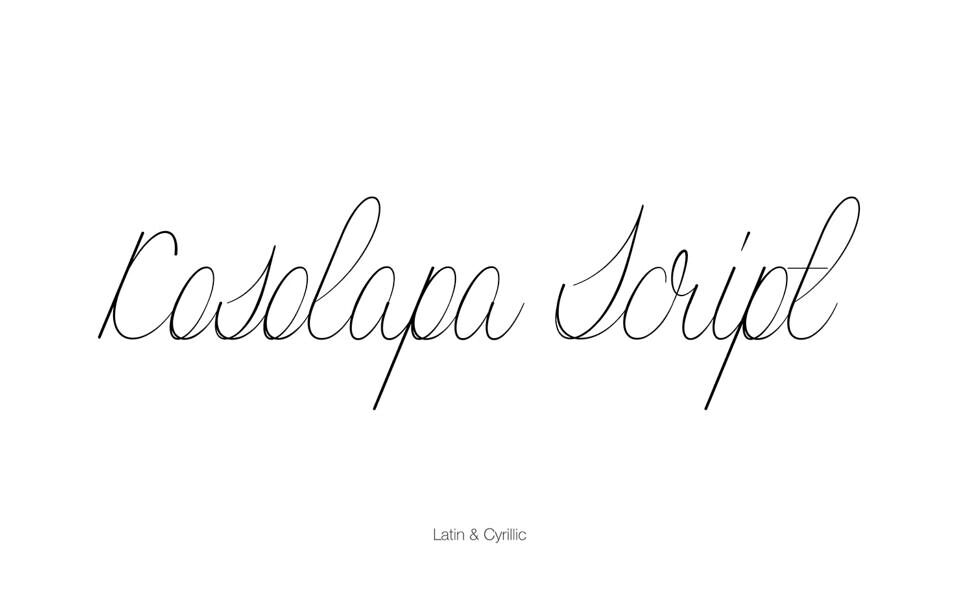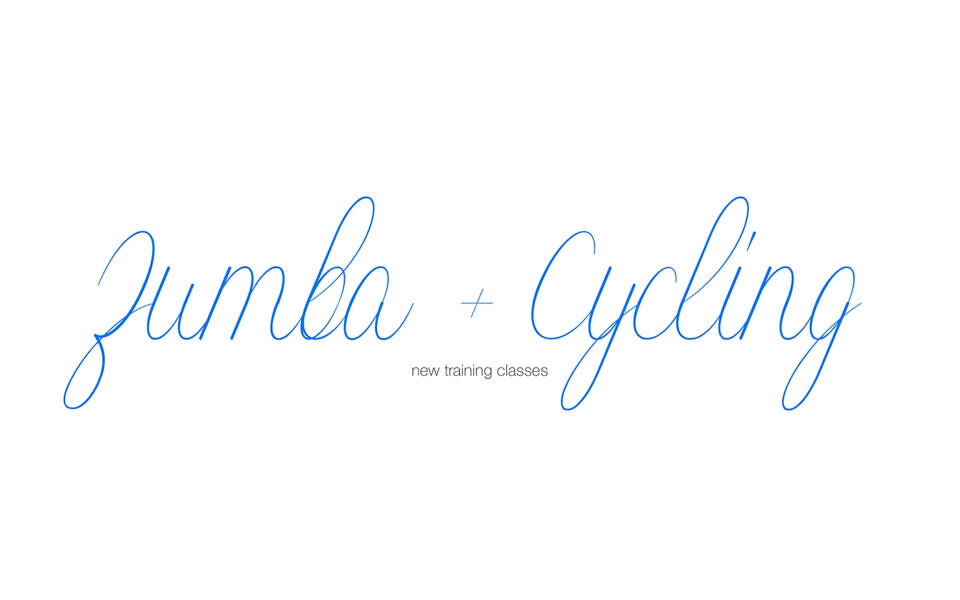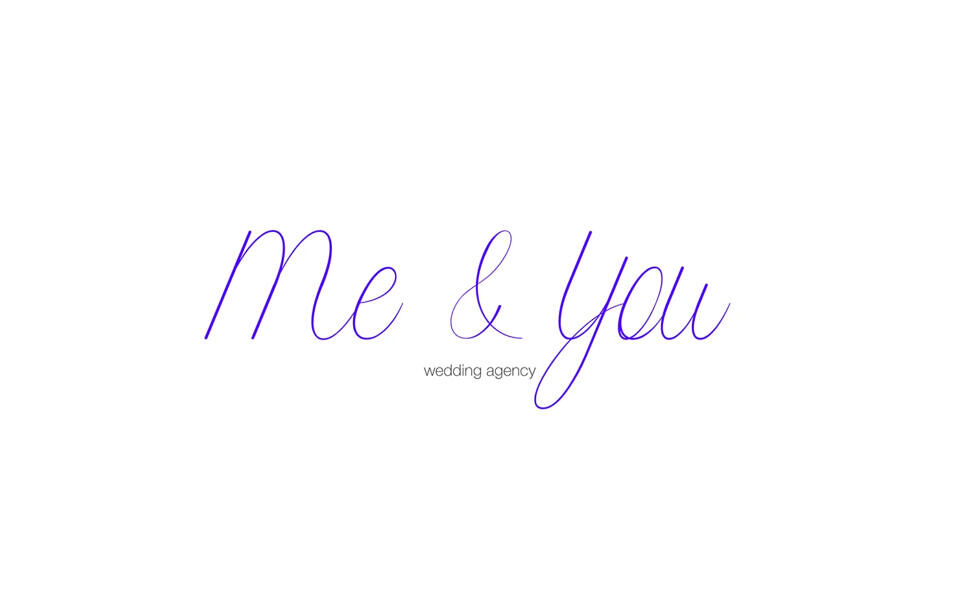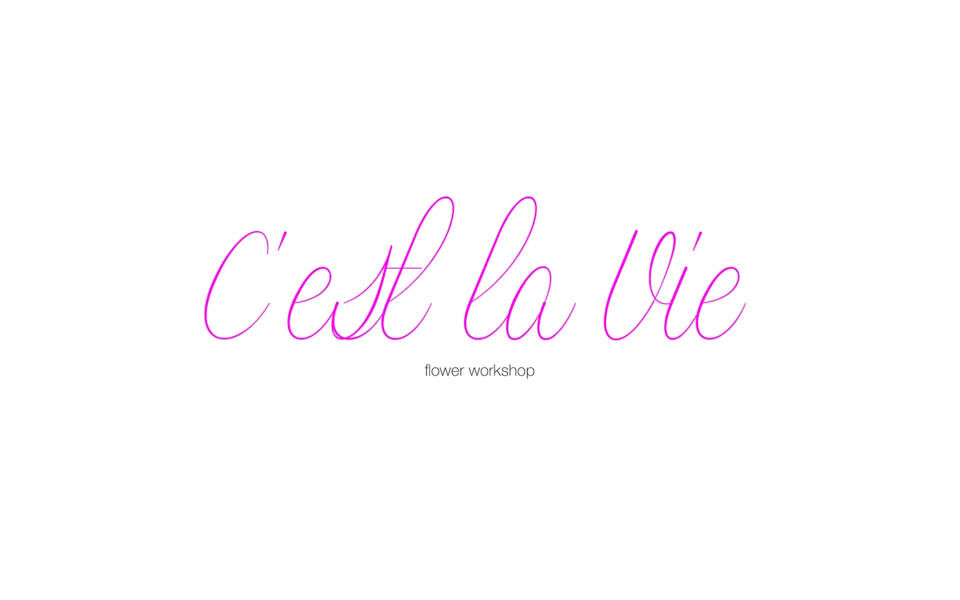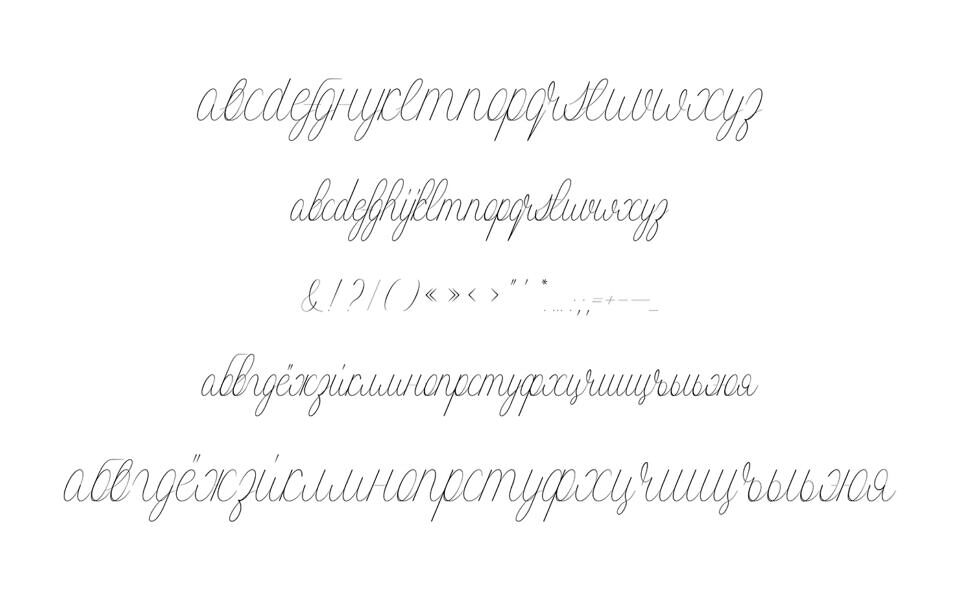
Kosolapa Script is an elegant and fluid handwritten font designed by Alexey Mozgolin. Its fine, curved strokes offer a refined and modern aesthetic, perfect for branding, packaging, and invitations.
This font exudes sophistication and personality, making it versatile for various creative projects. Available under the MIT license, it allows both commercial and personal use without restrictions.
Compatible with 15 languages, including Russian and English, Kosolapa Script is an ideal choice for designers seeking an artistic and contemporary touch in their designs.